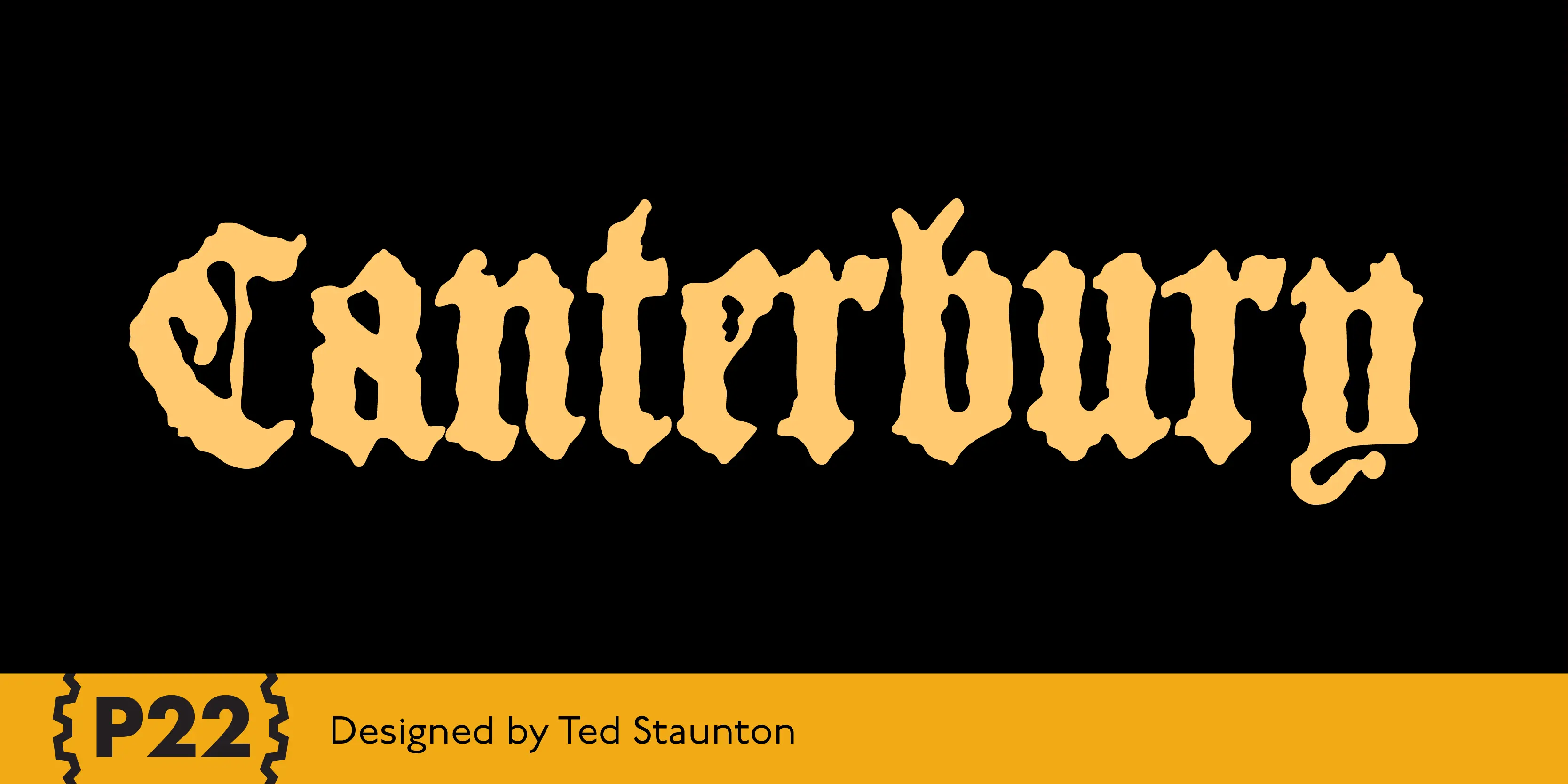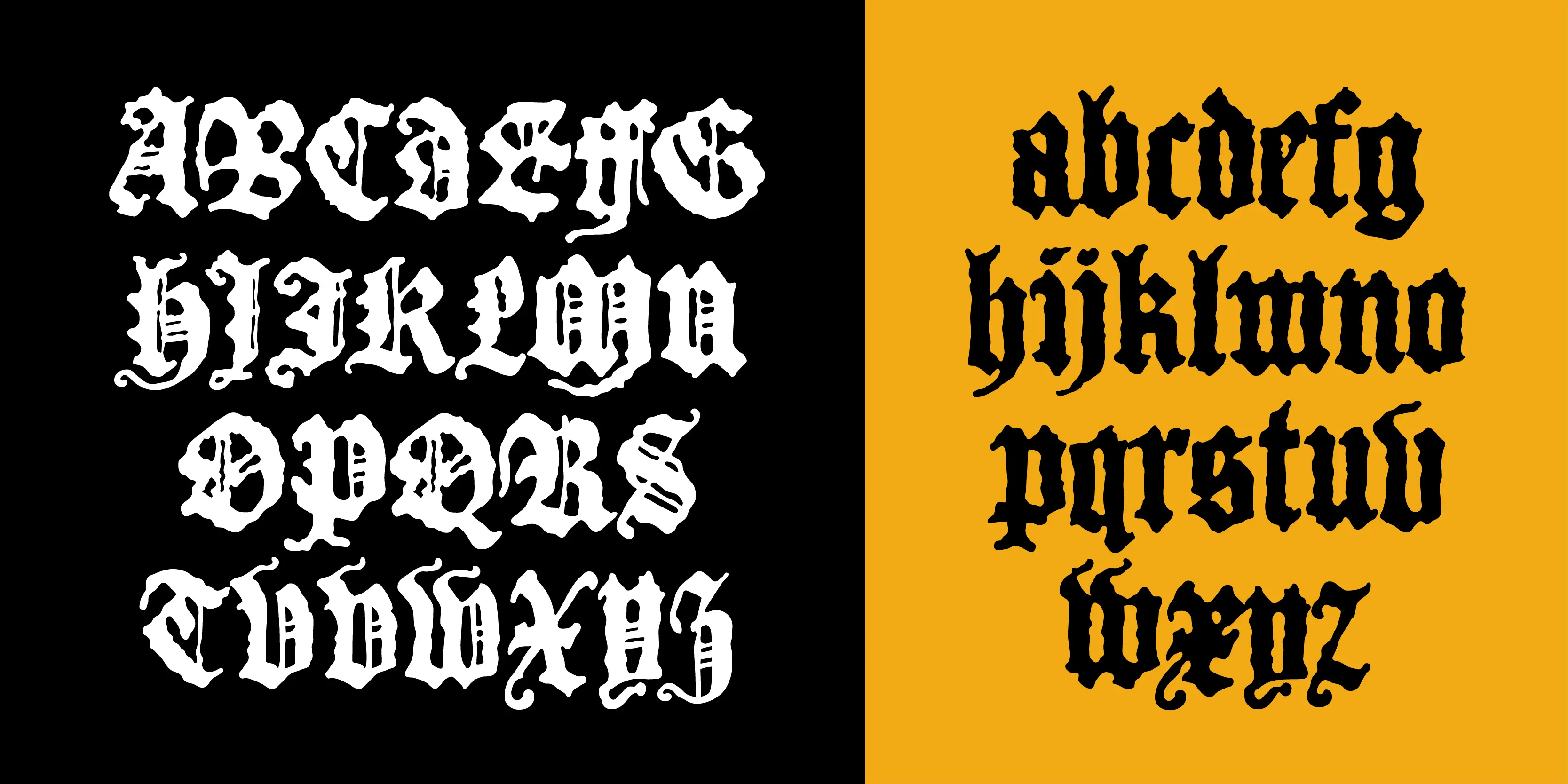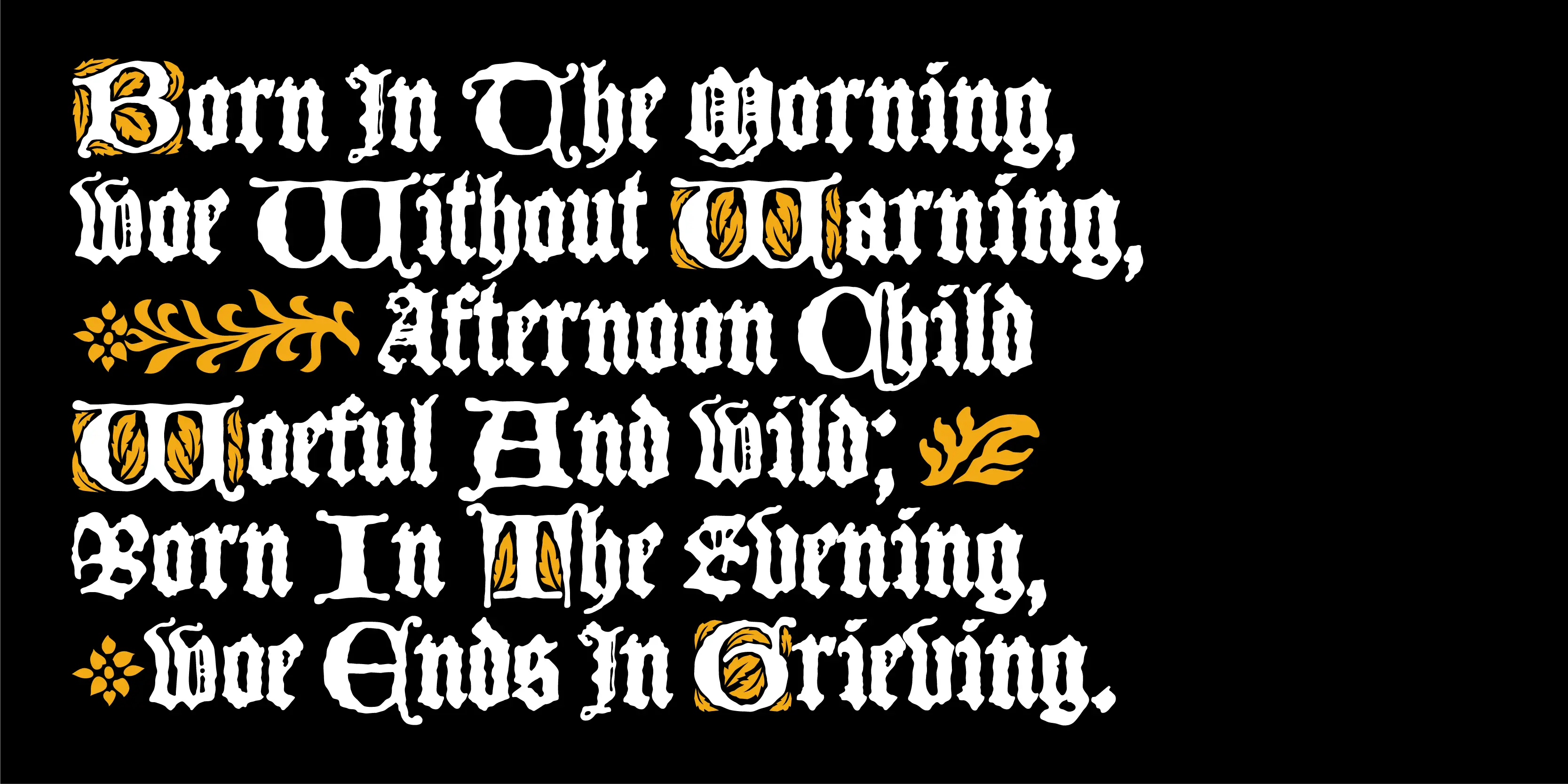
Canterbury Font
Canterbury
Canterbury is a late Medieval Gothic font with a rough edge. This blackletter face is available with four different types of Capital initial letters or combined into one OpenType Pro font with all variations plus historic ligatures, alternates and even a few ornaments.